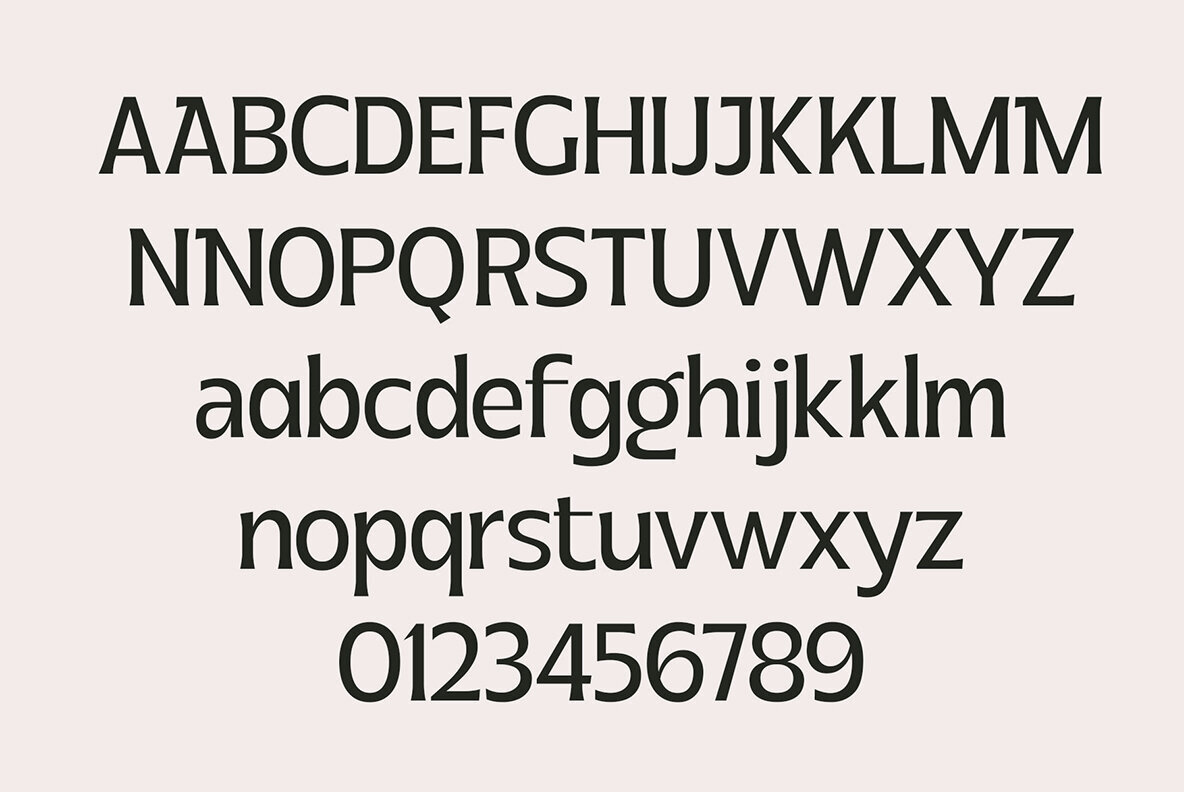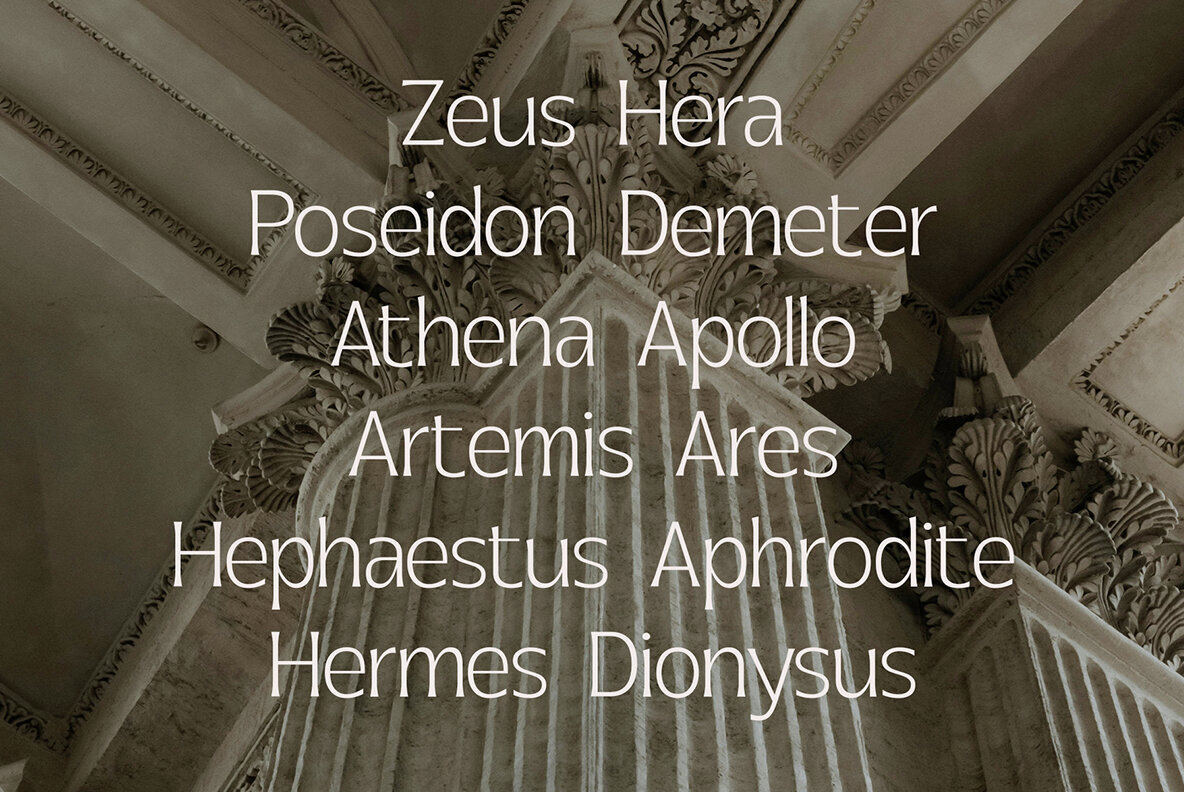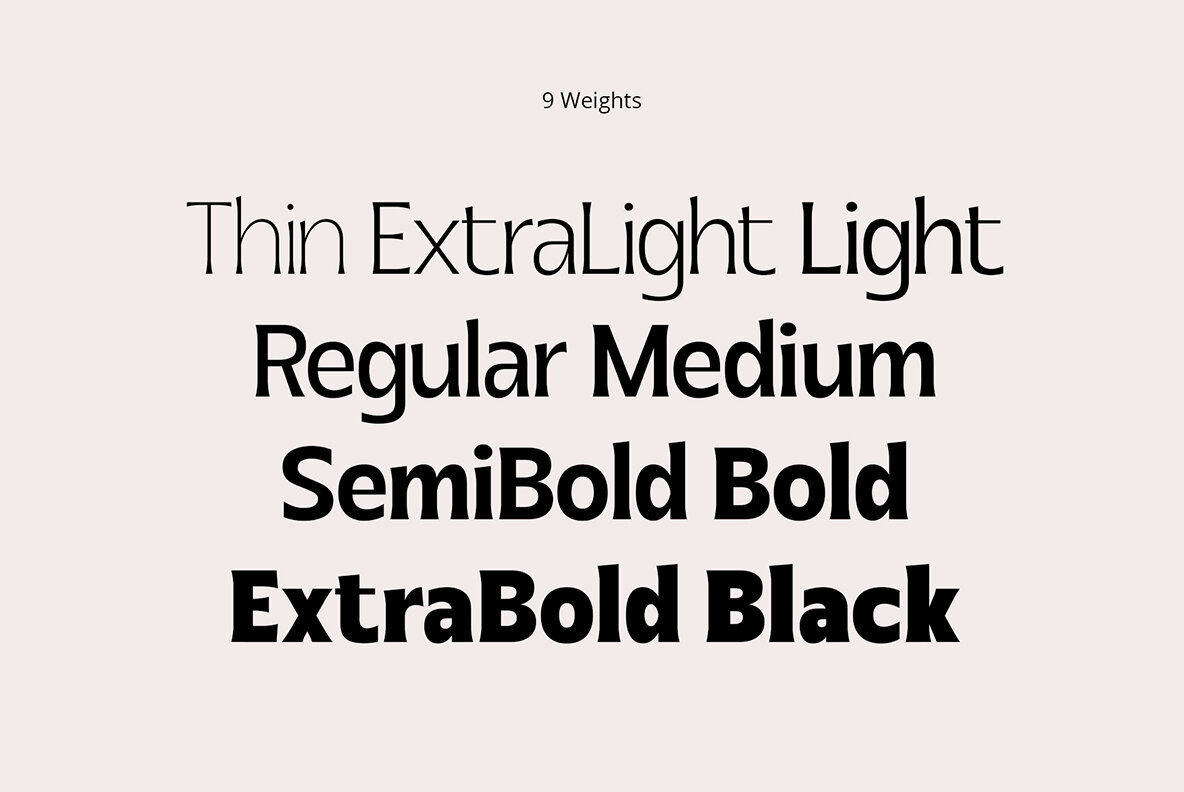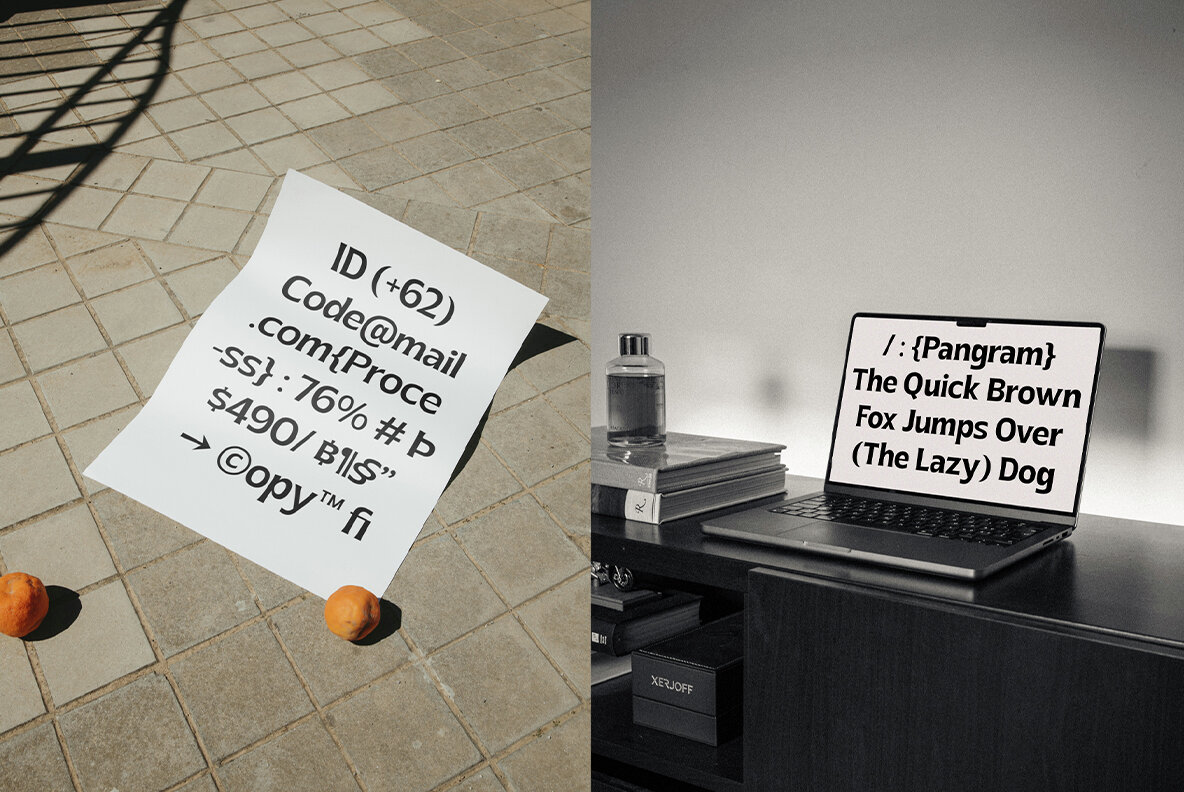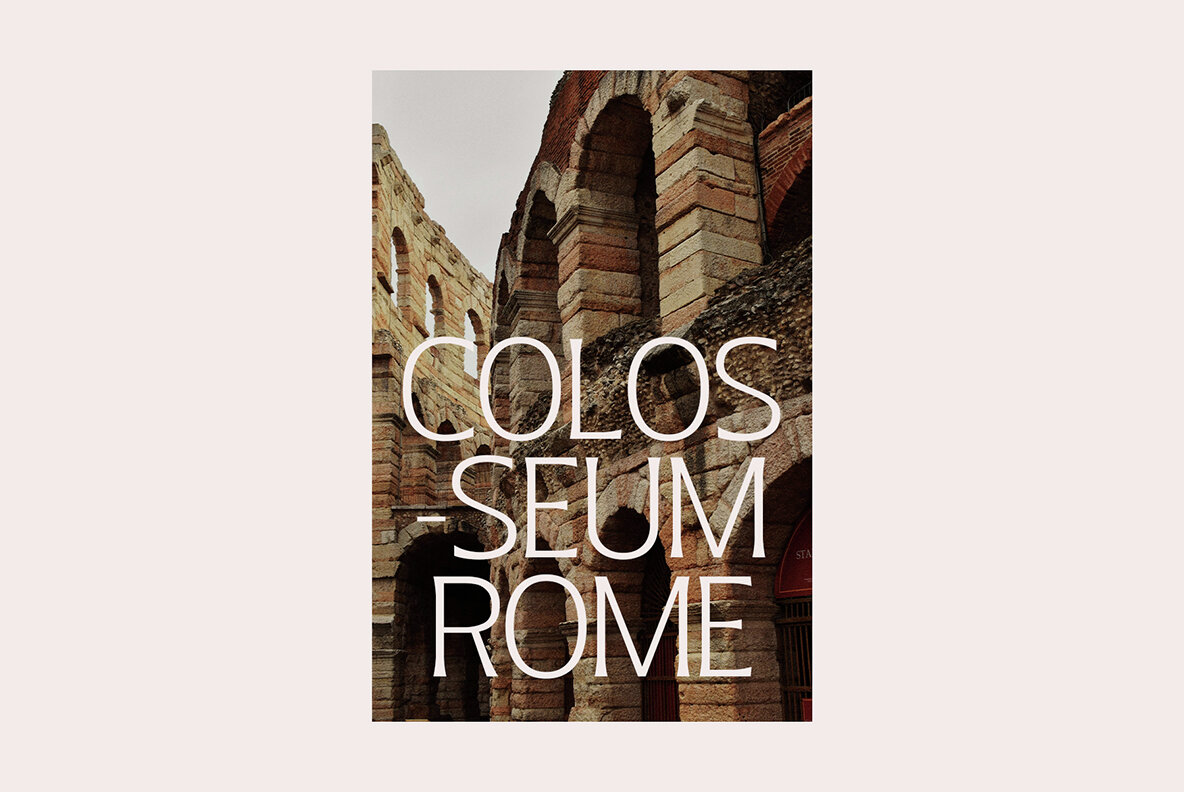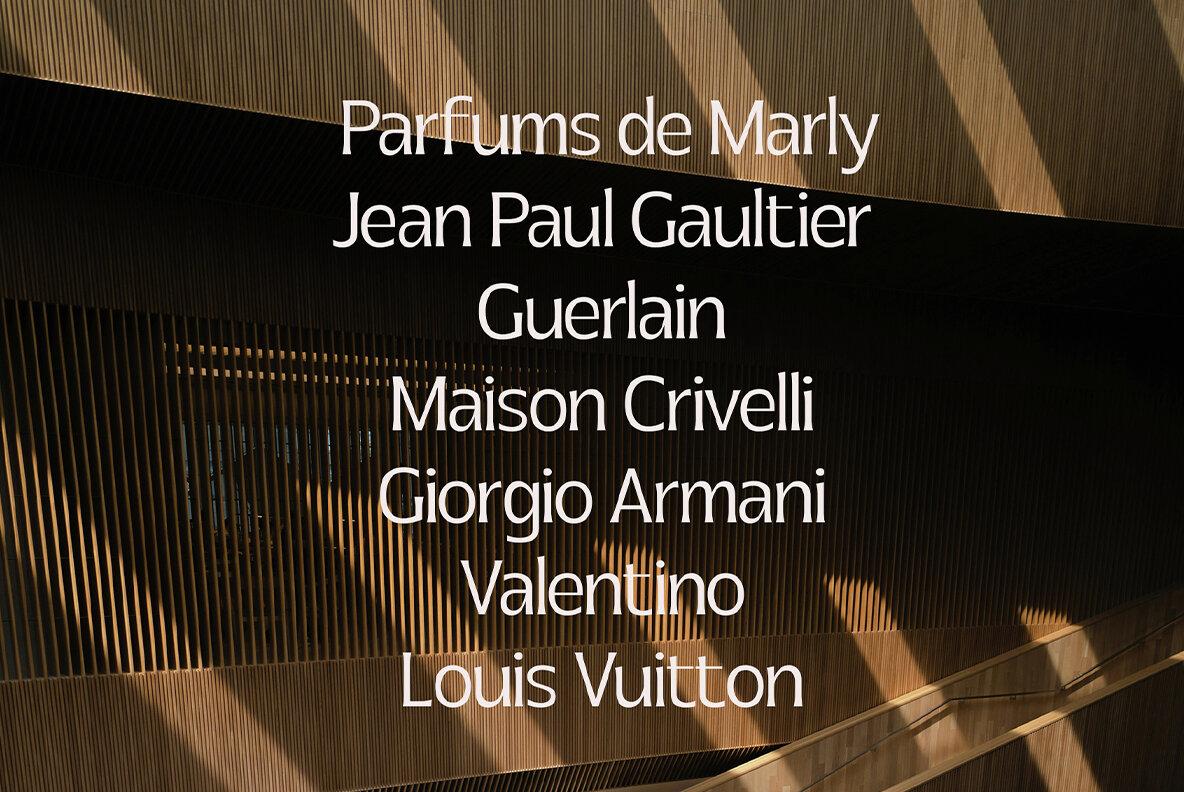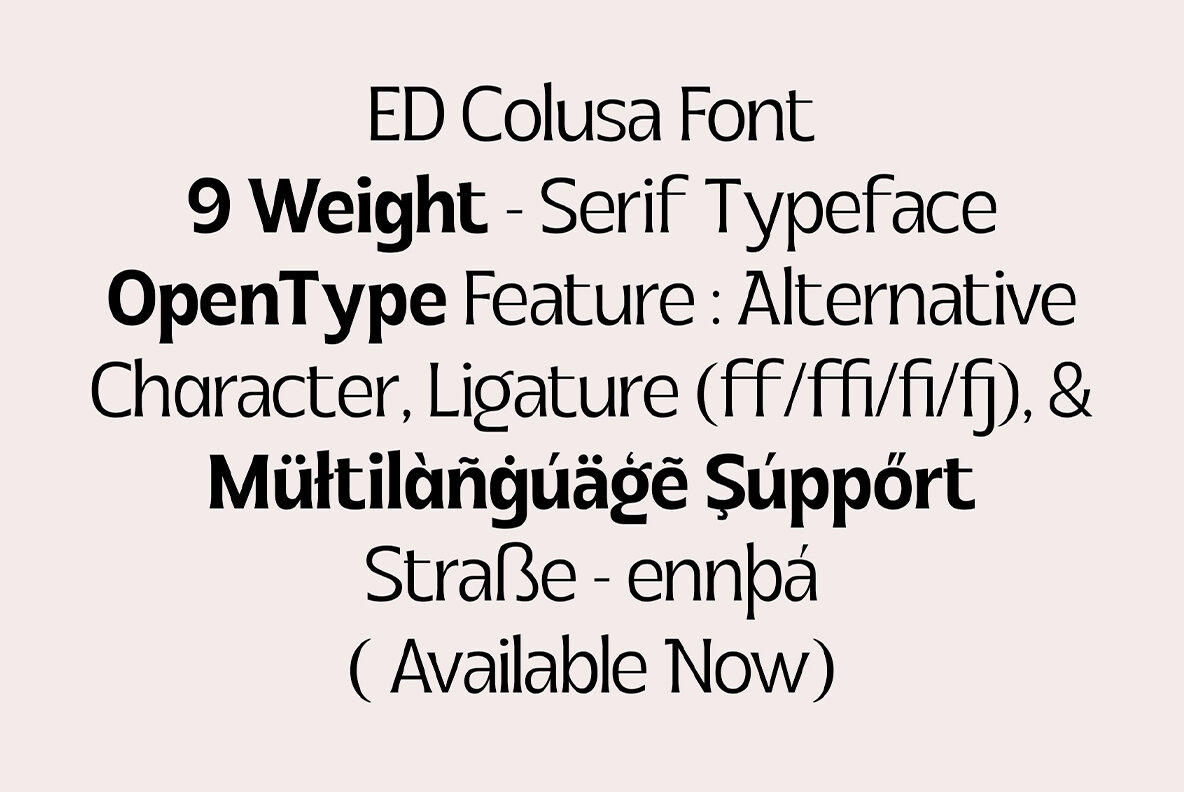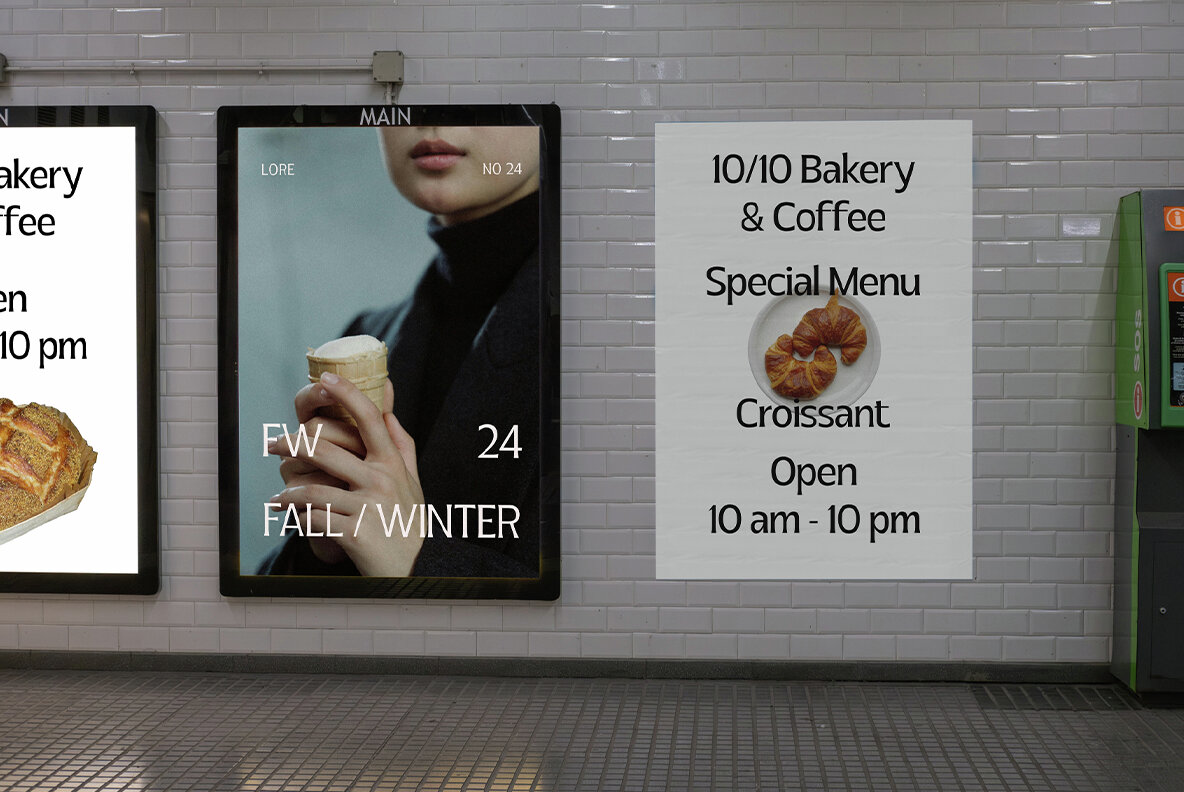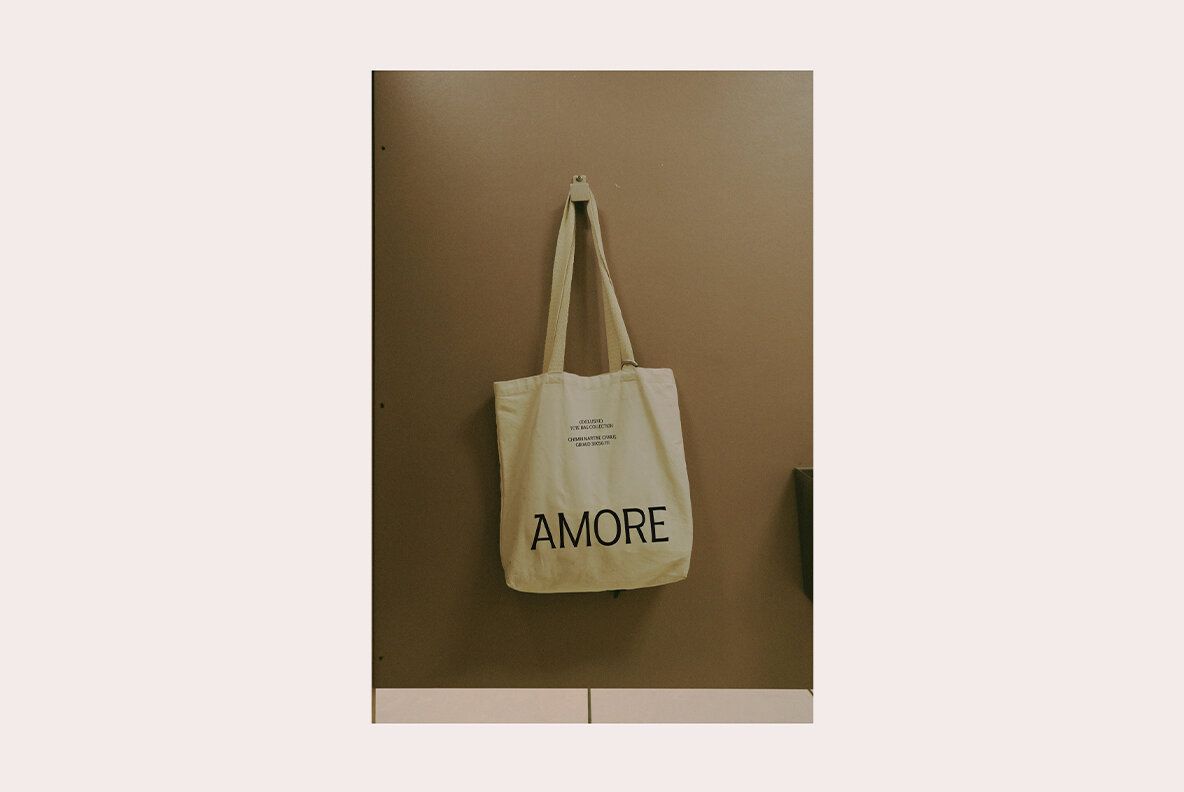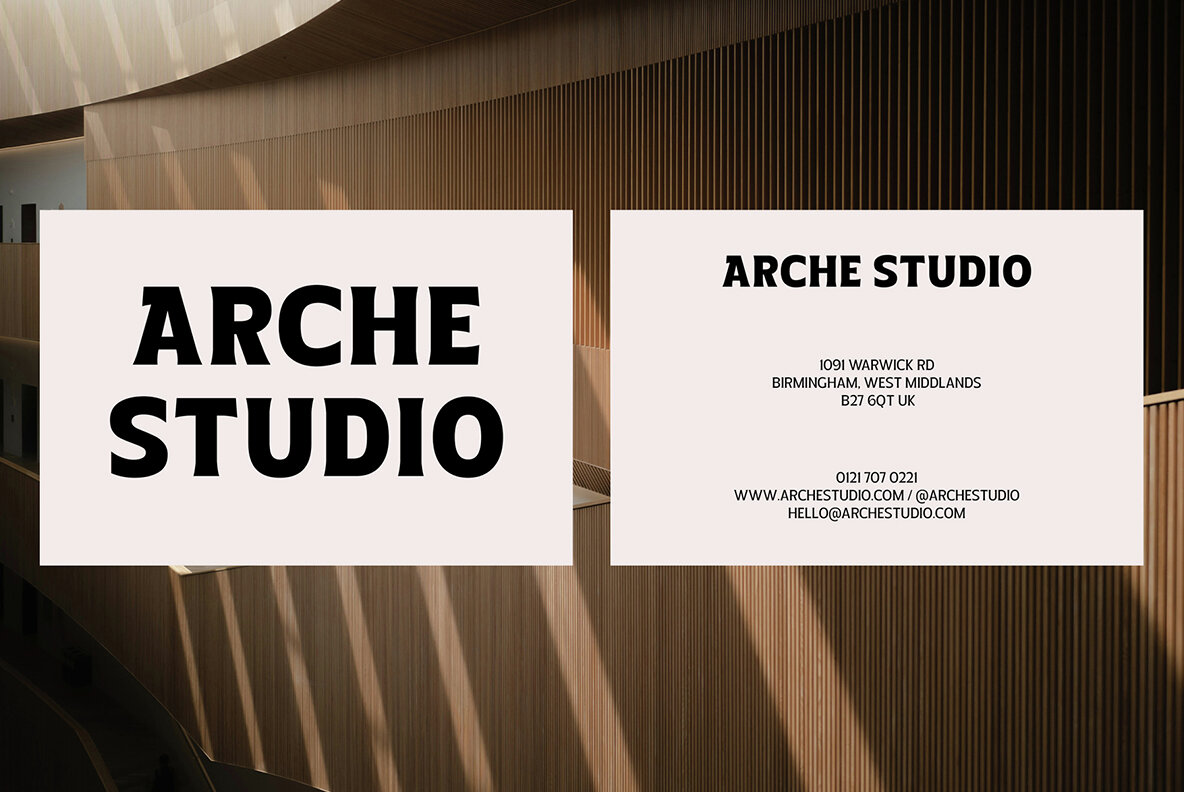
ED Colusa Font
ED Colusa is a modern serif typeface that effortlessly blends minimalist design with a touch of classic elegance. Its clean and proportional structure conveys a timeless aesthetic, making it a versatile choice for various design needs. Offering nine different weight levels, from thin to black, ED Colusa allows designers to tailor its application from gentle and soft to bold and authoritative styles.
The font includes essential OpenType features such as Stylistic sets, ligatures, and multi-language support, enhancing its usability across diverse projects. Whether you're designing a logotype, crafting printed quotes, invitations, cards, headers, or even working on letterheads, apparel, web designs, magazines, and books, ED Colusa provides a sophisticated and flexible option for creative expression.